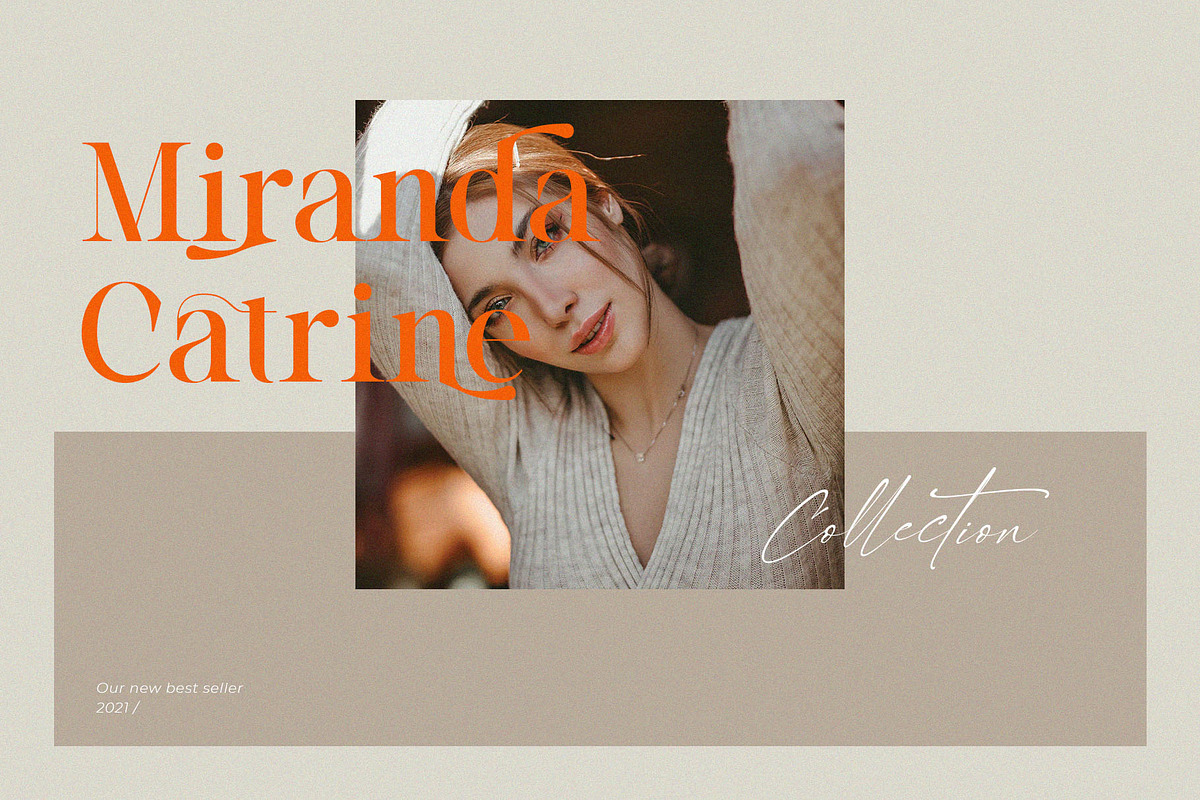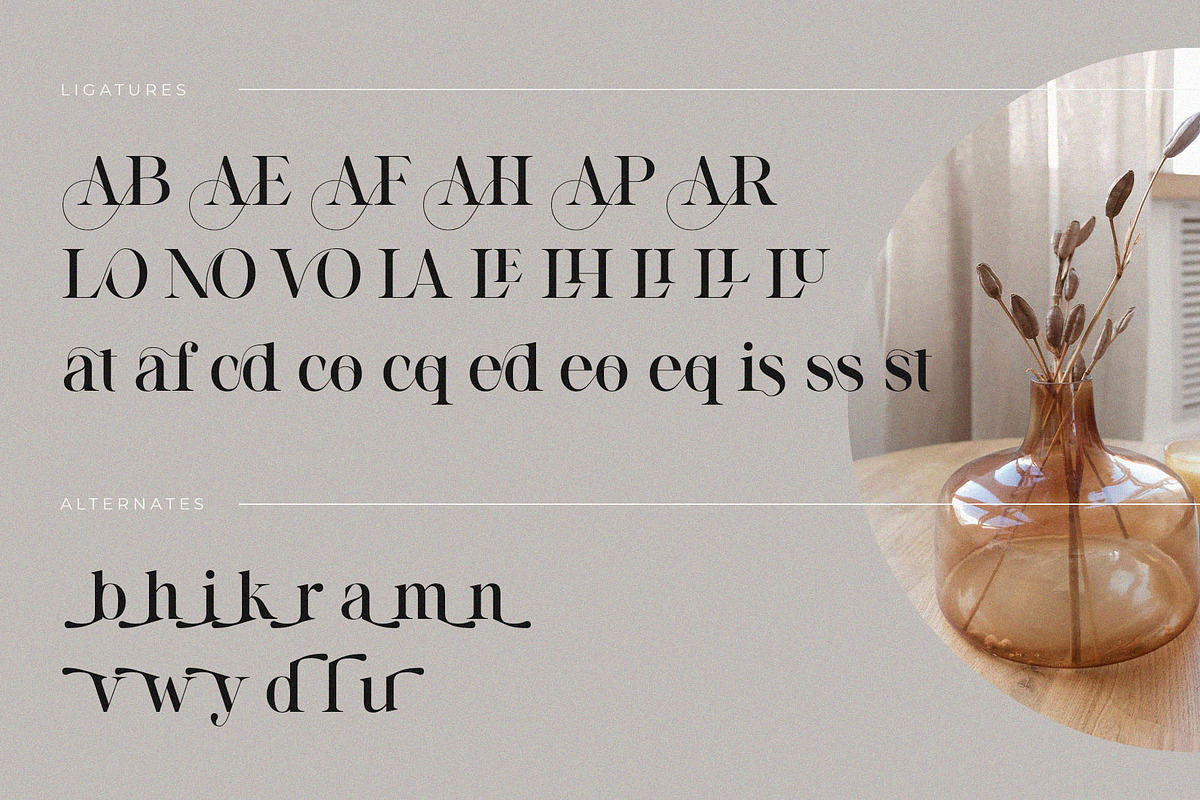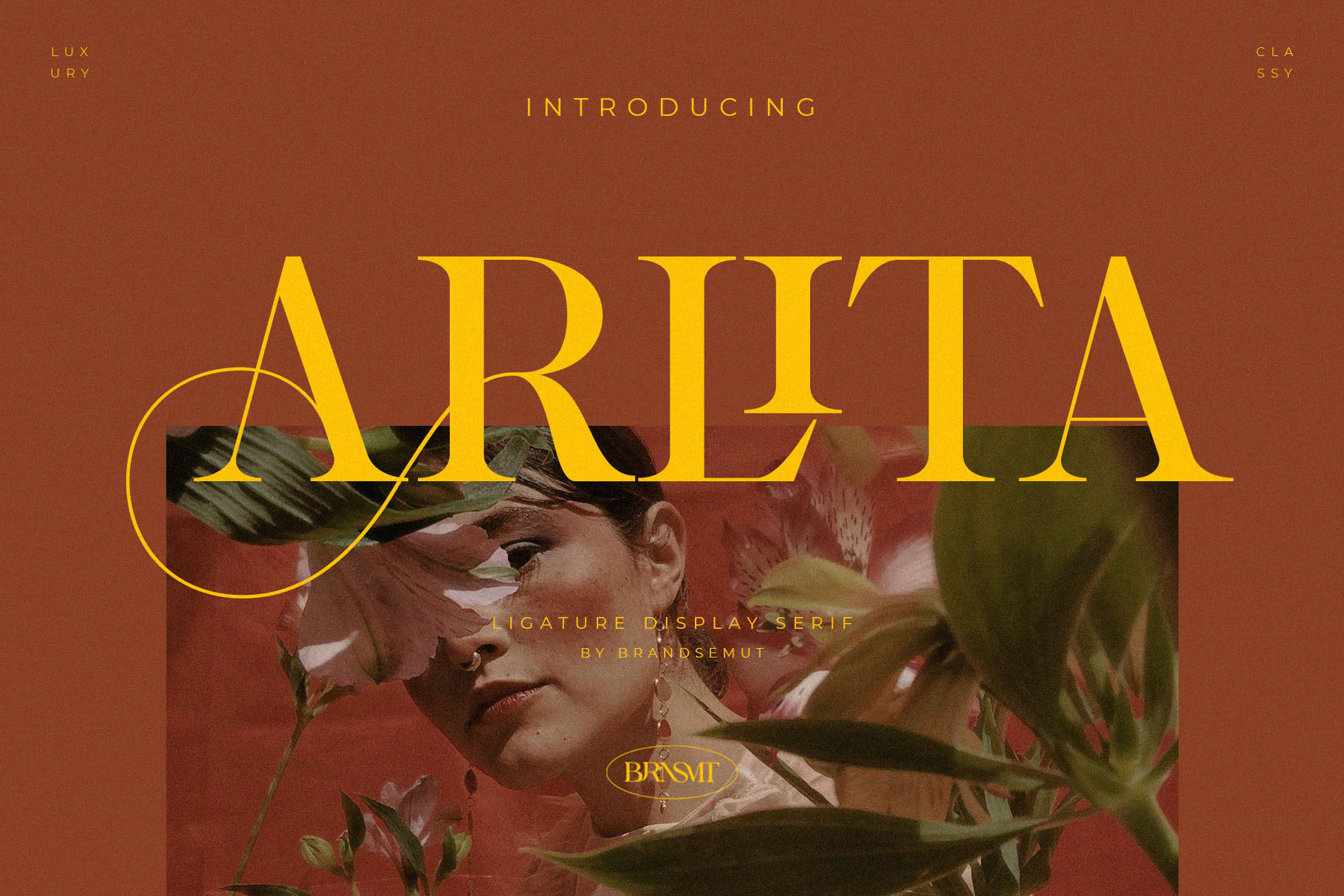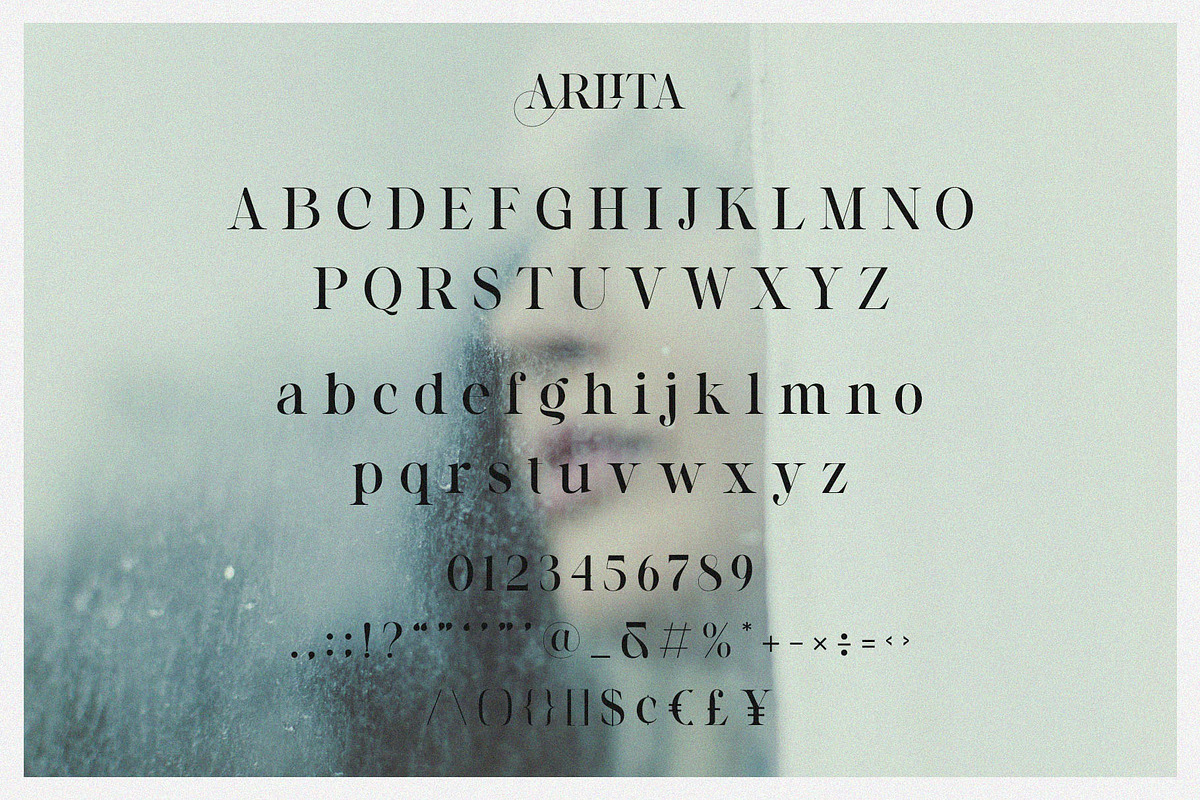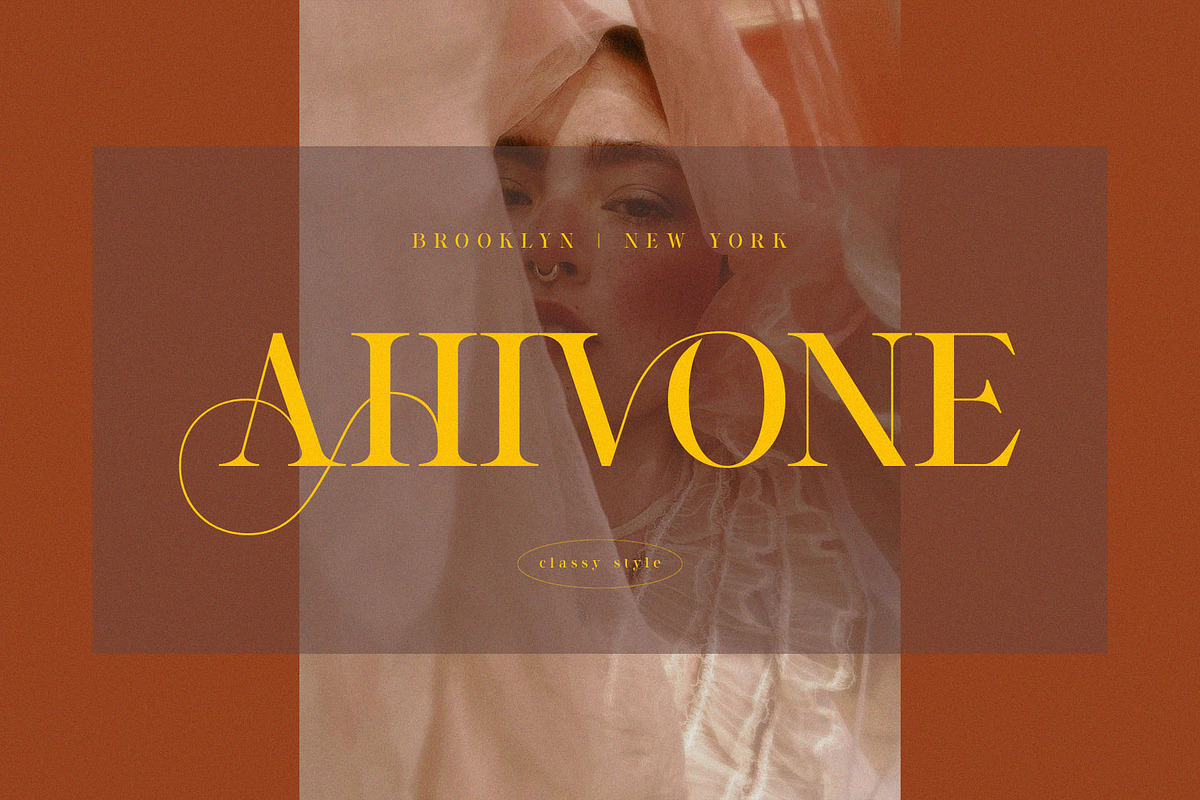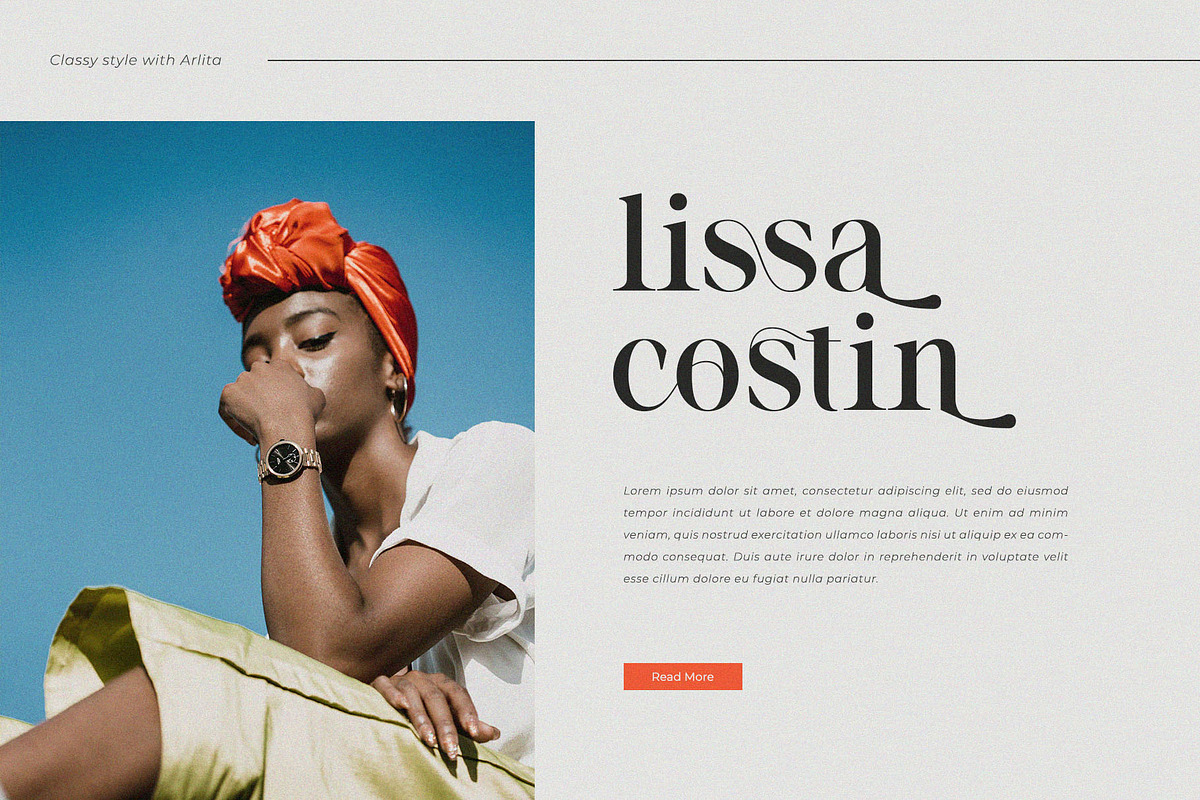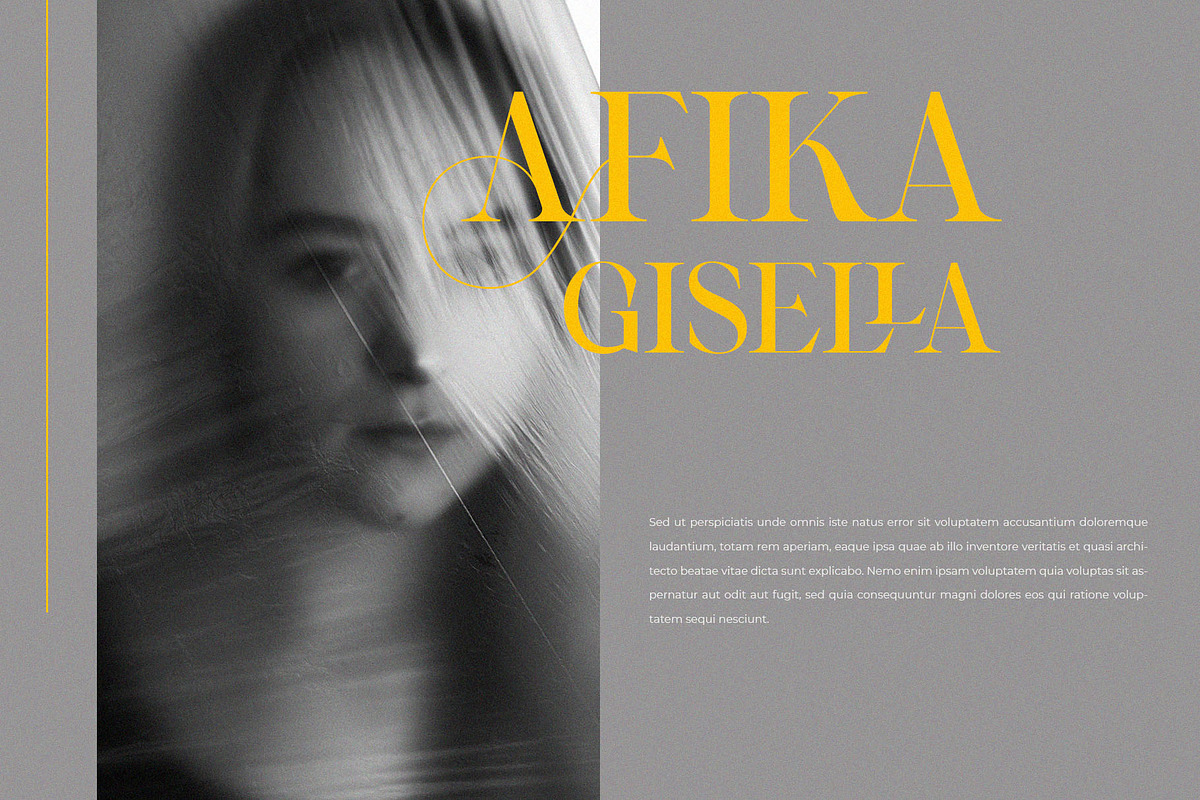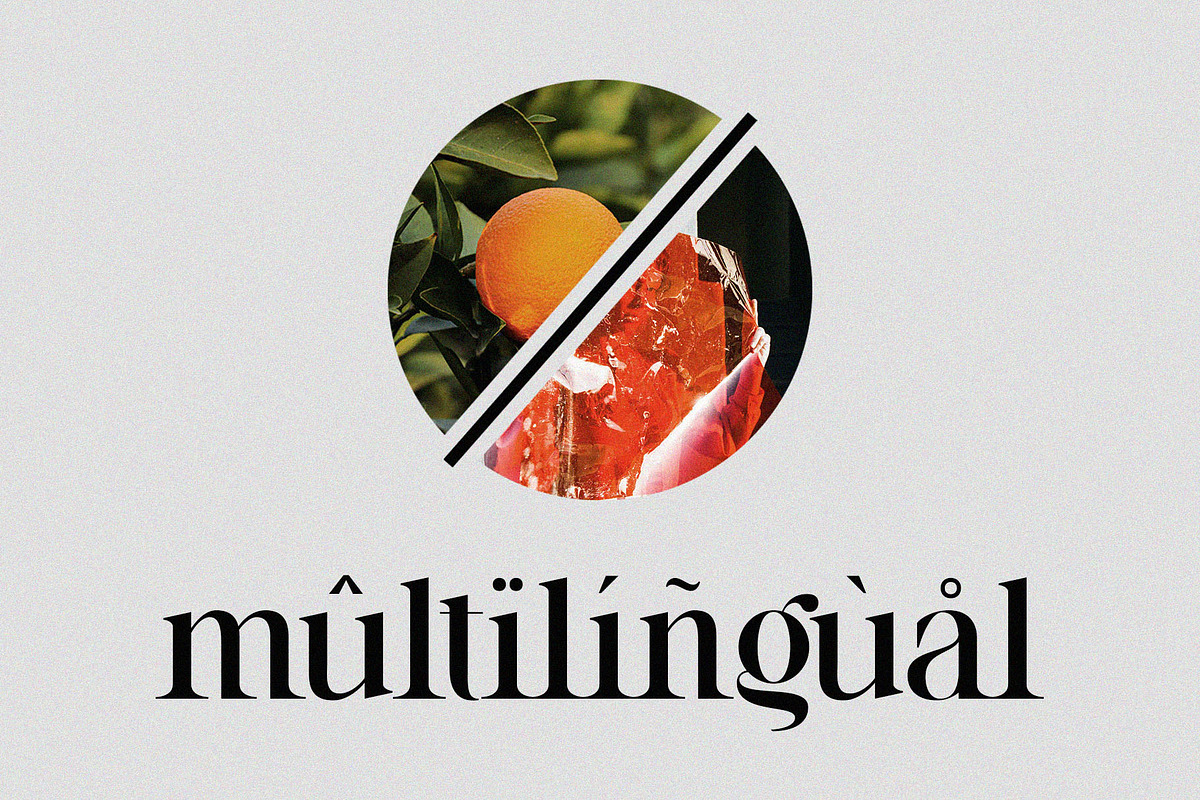
Arlita – Unique Ligature Font
Introducing our new "Arlita", Modern ligature typeface with Unique, Classy and Stylish. Is perfect for branding, logos, invitation, master heads, and more.
Arlita Features :
- Multilanguage